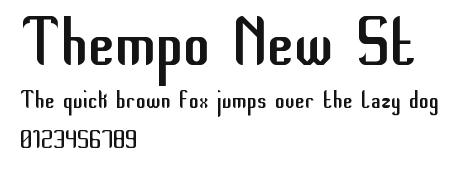
• Font Name: Thempo New St
• Full Font Name: Thempo New St
• Designer: This font is an original work of southype dot com
About Thempo New St.ttf
Thempo New St.ttf is a modern, elegant sans-serif font designed for ultimate readability and visual harmony. Perfect for branding, headlines, web design, and print materials.